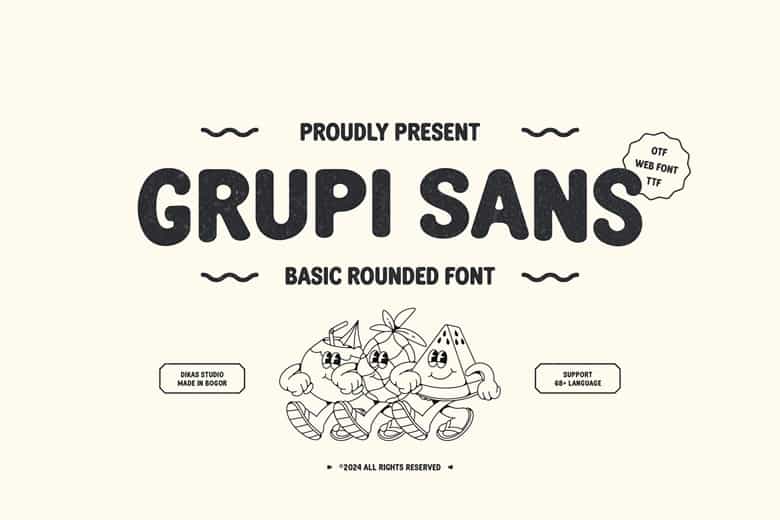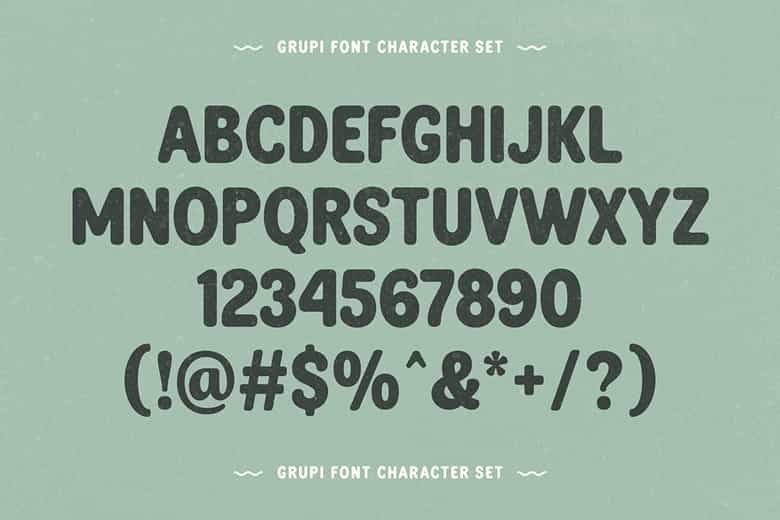
Grupi Sans is a bit rounded font with strong and cheerful letters to give the projects a happy and energetic feel. Taking its cues from retro, groovy, and pop fonts, this font will be perfect for projects that require a bit of modern throwback feel. Thanks to its universality, Grupi Sans is great for designing shiny badges and labels that will help you stand out from the crowd.